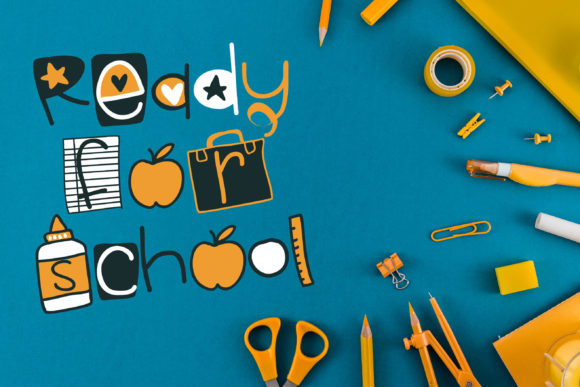
Prepare yourself for a scholastic voyage with the Ready for School Font, an educational masterpiece designed to ignite the spark of learning and creativity. This delightful font, hailing from the talented hands of Illustration Ink, captures the essence of childhood wonder with its whimsical and vibrant style.
Crafted with a playful hand-written flair, the Ready for School Font dances across your designs like a joyous celebration of learning. Each letter and symbol is meticulously adorned with school-themed elements, creating an immersive experience that transports you back to the halcyon days of school.
With its charmingly youthful spirit, the Ready for School Font is an ideal choice for educational materials, children's books, and any project that seeks to evoke a sense of nostalgia and joy. Its playful nature makes it a perfect fit for invitations, posters, and any design that aims to capture the carefree spirit of childhood.
Step into the classroom of imagination and let the Ready for School Font inspire your creations. Its energetic and imaginative style will transform ordinary designs into extraordinary adventures, ensuring that your message resonates with a youthful vibrancy that captivates the hearts and minds of your audience.